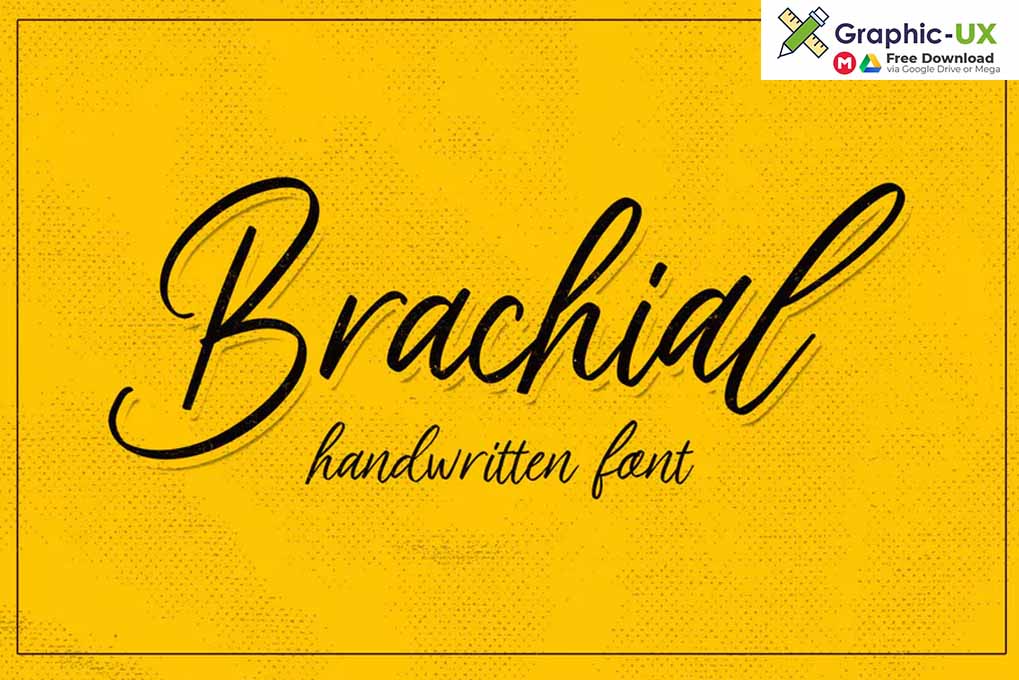
Brachial Script font free
Hello everyone, we present a new font Brachial Font comes with 3 varitars with beautiful writing theme with a charming curve and a very shaky bottom line It has a perfectly paired free marker font, and a bunch of very practical Swash bonuses Ideal for logos, handwritten quotes, product packaging , headers, posters, merchandise, social media & greeting cards.